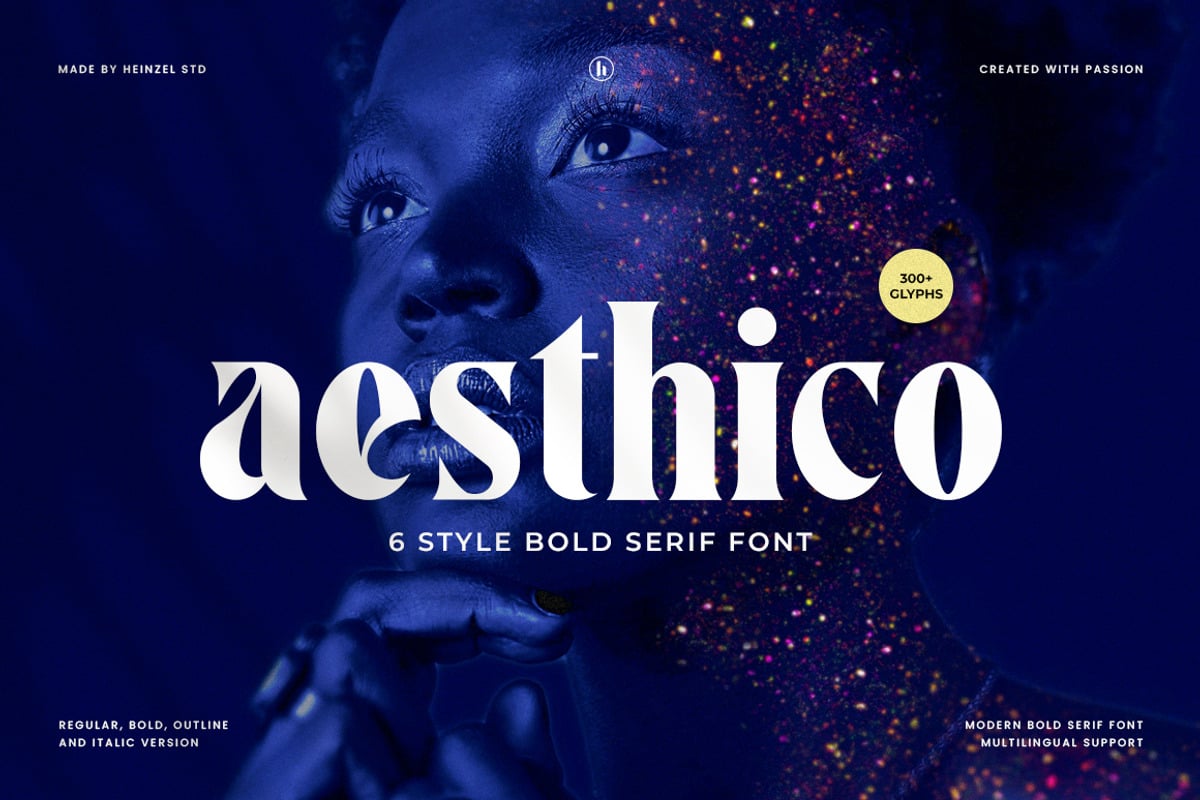
Aesthico Serif Font Family (6 Fonts)
Meet Aesthico — the bold serif typeface that fuses timeless elegance with a sharp contemporary edge.
Aesthico is a modern serif font family crafted to bring sophistication, style, and versatility to any creative project. Its bold strokes and refined curves strike the perfect balance between classic serif charm and fresh, contemporary design — making it equally at home in editorial spreads, fashion branding, and bold marketing campaigns.
With six distinct styles and a robust character set, Aesthico gives designers the flexibility to move fluidly between different creative needs without ever sacrificing visual impact.
- 6 serif font styles — Regular, Bold, Outline, and Italic versions
- 300+ glyphs with an extended character set
- Multilingual support for global design projects
Perfect For:
- Logos and brand identity design
- Headlines and editorial layouts
- Posters and packaging
- Social media graphics
- Marketing and promotional materials
Whether you're building a luxury brand identity or designing eye-catching visuals that demand attention, Aesthico delivers a sophisticated aesthetic with genuine staying power. A must-have typeface for designers who value both elegance and impact.